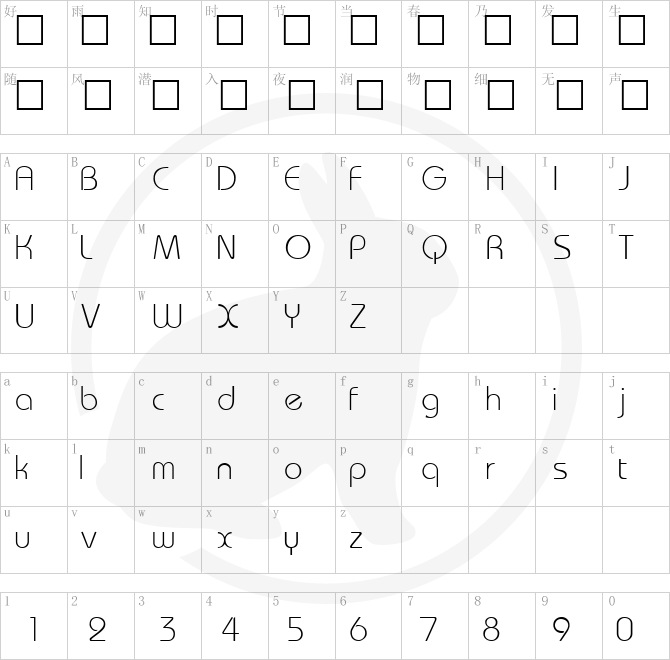
- Font Name:QTDoghausLight
QTDoghausLight-Regular.ttf is a very beautiful artistic font, QTDoghausLight-Regular.ttf is widely used in the design and printing of various books and pictures,QTDoghausLight-Regular.ttf has a strong visual impact,QTDoghausLight-Regular.ttf is a commonly used font in newspapers, magazines and books, and is used in posters, e-commerce Poster design, store design, logo design, font design and other fields.QTDoghausLight-Regular.